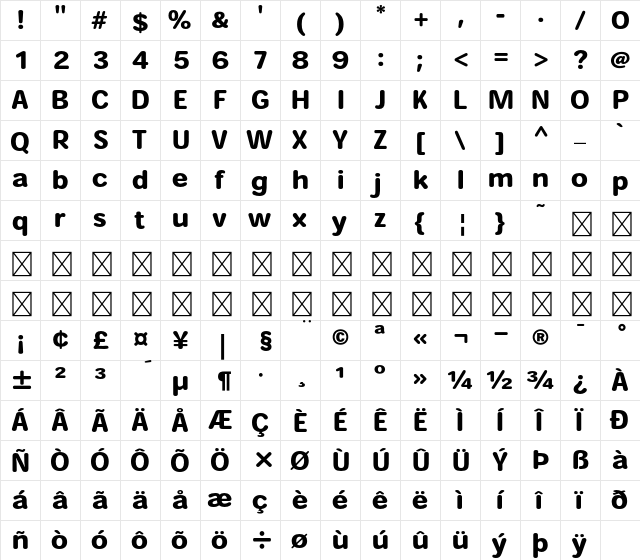
Heisei Maru Gothic Std W8 Font Preview
Heisei Maru Gothic Std W8
Heisei Maru Gothic Std W8 Font Details
Design Context for Heisei Maru Gothic Std Typeface
Heisei Maru Gothic Std takes a clean, functional approach — its unadorned letterforms prioritise legibility and work reliably across screen and print environments.
Font Pairing: Works well alongside a characterful serif or display font that can carry the expressive load while Heisei Maru Gothic Std handles the functional copy.
Pro Tip: Use Heisei Maru Gothic Std for UI labels, navigation, and short-form body copy where clean legibility is the priority.